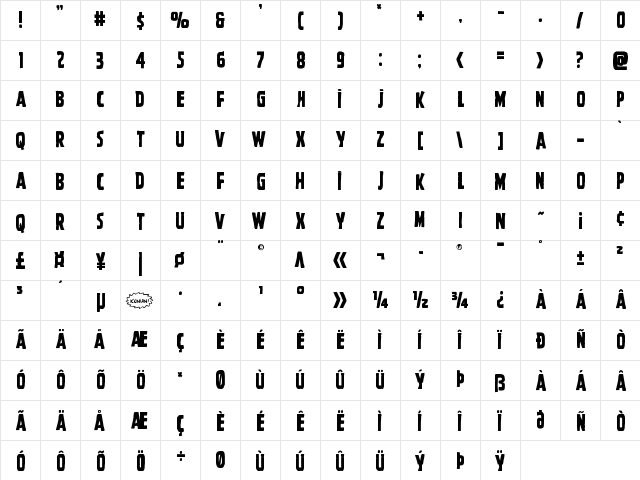
Ghoulish Intent Shift Regular
Design Context for Ghoulish Intent Shift Typeface
Ghoulish Intent Shift is a composed and adaptable typeface that performs quietly and consistently across a wide range of design contexts.